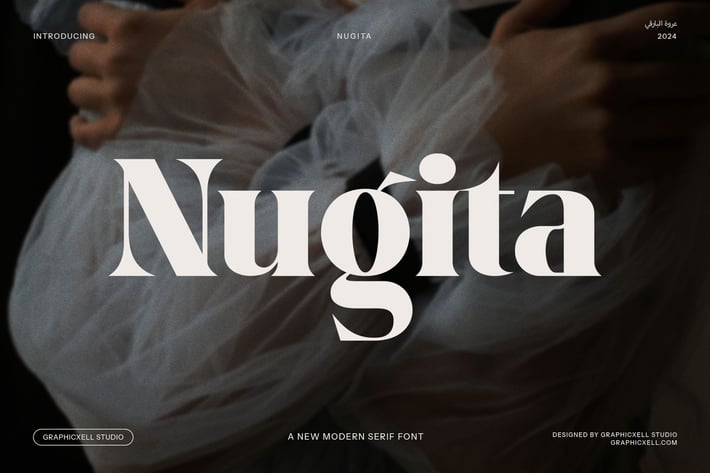
Nugita Modern Serif Font
Nugita Modern Serif Font – Elegant, Vintage-Inspired Typography for Timeless Designs
Introducing Nugita Modern Serif Font, a beautifully crafted serif typeface that blends modern sophistication with vintage charm. This elegant and unique font is perfect for those looking to create a strong, stylish visual identity with a timeless appeal. The distinct letterforms of Nugita exude both luxury and refinement, making it an ideal choice for a wide range of creative projects.
Designed with versatility in mind, Nugita Modern Serif Font is perfect for logos, branding, websites, magazines, and advertisements. Its clean, crisp lines and refined serifs make it highly legible, while its classic aesthetic adds a touch of nostalgia to any design. Whether you're designing for boutiques, high-end products, or food brands, Nugita enhances your branding with its unique character and timeless elegance.
The font's modern appeal is combined with subtle vintage influences, offering a perfect balance between contemporary design and retro elegance. Nugita works beautifully in both print and digital environments, from magazine layouts to website headers and product packaging.
Whether you're looking to create a sophisticated branding project or a memorable advertisement, Nugita Modern Serif Font ensures your design stands out with style. Its versatility and elegance make it a must-have for those seeking a distinctive, high-quality font for their creative needs.
Enhance your next project with the Nugita Modern Serif Font, the ideal choice for designs that require a blend of modern luxury and vintage flair.
Introducing Nugita Modern Serif Font, a beautifully crafted serif typeface that blends modern sophistication with vintage charm. This elegant and unique font is perfect for those looking to create a strong, stylish visual identity with a timeless appeal. The distinct letterforms of Nugita exude both luxury and refinement, making it an ideal choice for a wide range of creative projects.
Designed with versatility in mind, Nugita Modern Serif Font is perfect for logos, branding, websites, magazines, and advertisements. Its clean, crisp lines and refined serifs make it highly legible, while its classic aesthetic adds a touch of nostalgia to any design. Whether you're designing for boutiques, high-end products, or food brands, Nugita enhances your branding with its unique character and timeless elegance.
The font's modern appeal is combined with subtle vintage influences, offering a perfect balance between contemporary design and retro elegance. Nugita works beautifully in both print and digital environments, from magazine layouts to website headers and product packaging.
Whether you're looking to create a sophisticated branding project or a memorable advertisement, Nugita Modern Serif Font ensures your design stands out with style. Its versatility and elegance make it a must-have for those seeking a distinctive, high-quality font for their creative needs.
Enhance your next project with the Nugita Modern Serif Font, the ideal choice for designs that require a blend of modern luxury and vintage flair.